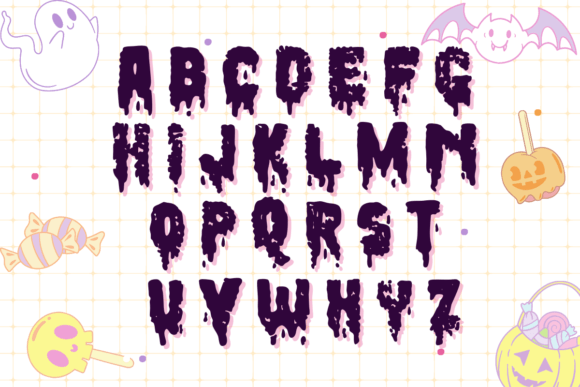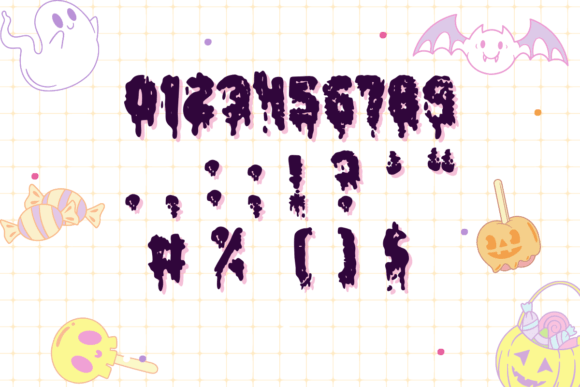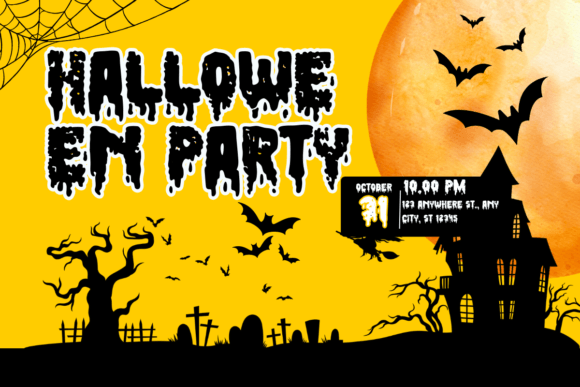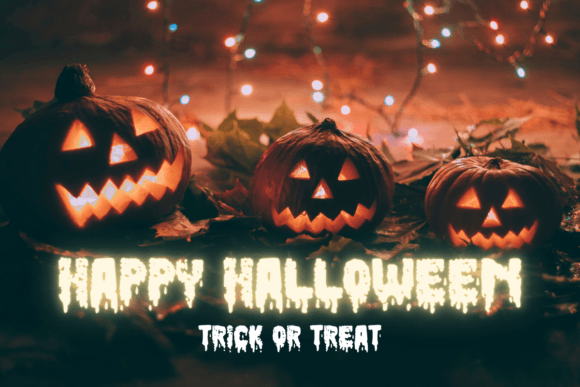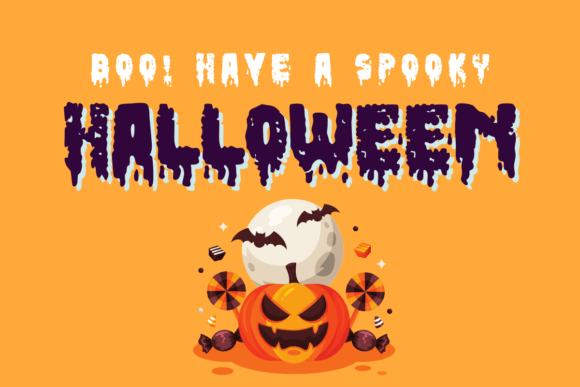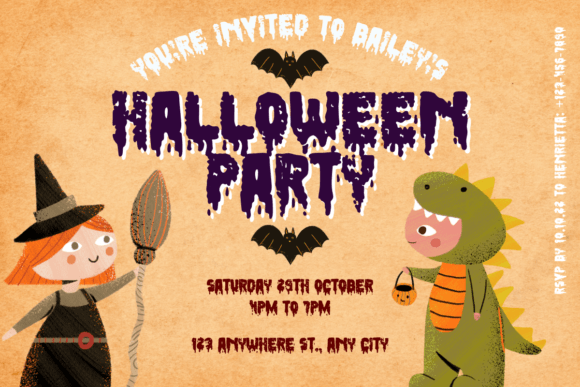
Introducing Capable Font: The Spookiest Halloween Display Font
Are you ready to add a dash of spookiness to your Halloween designs? Look no further than Capable Font, a creepy and captivating display font perfect for creating eerie posters, stickers, party invitations, decorations, and more. In this article, we’ll dive into the world of Capable Font and explore its features, uses, and benefits for designers and crafters.
What is Capable Font?
Capable Font is a specially designed Halloween display font that exudes a spooky and mysterious vibe. Its unique and intricate design makes it perfect for grabbing attention and setting the tone for your Halloween-themed designs. Whether you’re creating invitations, posters, or decorations, Capable Font is sure to cast a spell on your audience.
Key Features of Capable Font
- Unique and Intricate Design: Capable Font boasts a one-of-a-kind design that’s sure to make your designs stand out from the crowd.
- Spoppy and Creepy Vibe: This font is designed to evoke a sense of spookiness and eeriness, perfect for Halloween-themed designs.
- Highly Versatile: Use Capable Font for a wide range of designs, from posters and stickers to party invitations and decorations.
- Easily Readable: Despite its intricate design, Capable Font is surprisingly easy to read, making it perfect for headlines and titles.
Uses for Capable Font
Capable Font is incredibly versatile and can be used for a wide range of Halloween-themed designs, including:
- Posters and Flyers: Create eye-catching posters and flyers for Halloween parties, events, and promotions.
- Stickers and Labels: Design spooky stickers and labels for Halloween treats, decorations, and favors.
- Party Invitations: Set the tone for your Halloween party with creepy and inviting invitations featuring Capable Font.
- Decorations and Signage: Use Capable Font to create spooky decorations and signage for your Halloween party or event.
Capable Font offers a range of benefits for designers and crafters, including:
- Time-Saving: With Capable Font, you can quickly and easily create professional-looking designs without spending hours on font selection and design.
- Increased Creativity: The unique and intricate design of Capable Font is sure to inspire your creativity and help you come up with fresh and innovative design ideas.
- Professional-Looking Results: With Capable Font, you can achieve professional-looking results without needing extensive design experience.
Tips for Using Capable Font
To get the most out of Capable Font, here are a few tips to keep in mind:
- Use it Sparingly: While Capable Font is perfect for headlines and titles, it’s best to use it sparingly to avoid overwhelming your design.
- Experiment with Colors: Try pairing Capable Font with a range of colors to create a unique and eye-catching design.
- Combine with Other Fonts: Experiment with combining Capable Font with other fonts to create a unique and visually appealing design.